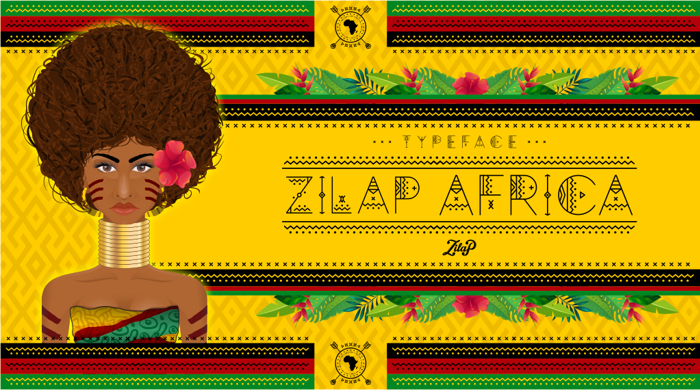
Zilap Africa Font
ZILAP AFRICA: Born from the cultures of this beautiful continent, it represents the spaces, people and customs of villages, towns and tribes, in each of their letters and geometrically designed paths.
It is an ideal source for enriching illustrations, compositions, Tribal art, Urban or modern art, its visual and conceptual richness design allows it to be a great complement in the design of advertising pieces focused on culture or music and can even be worked on identities of brand, it all depends on the creativity of the designer or artist who intends to use said font.
Zilap Africa "The culture of a continent, represented in a font”
Design & Concept by Zilap Studio